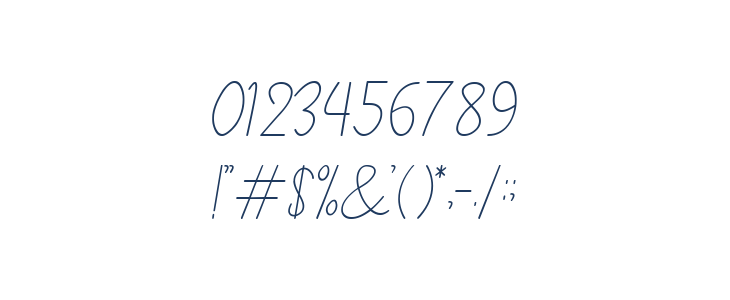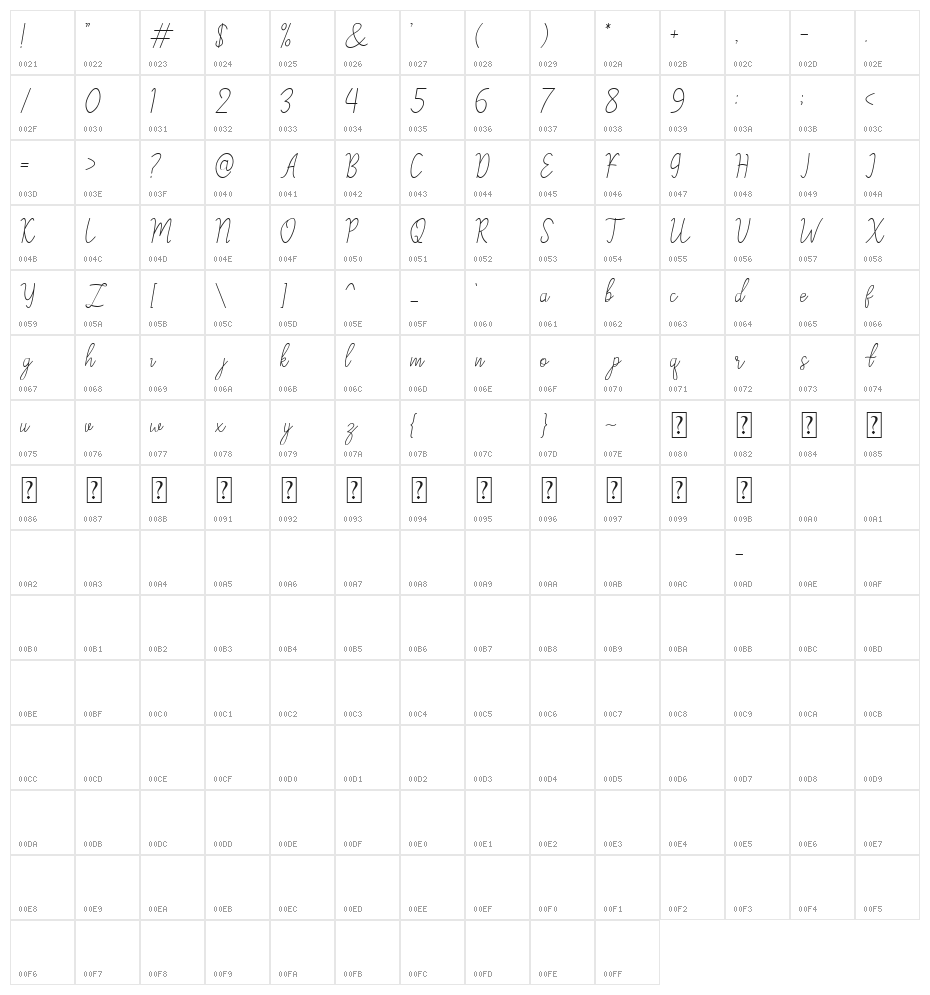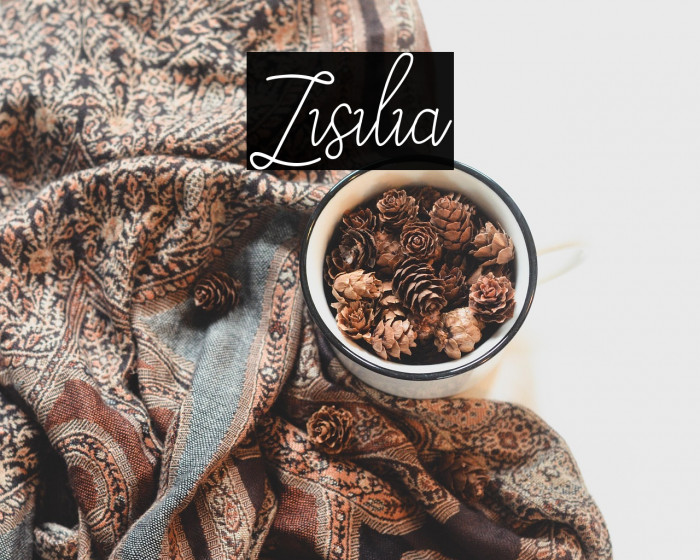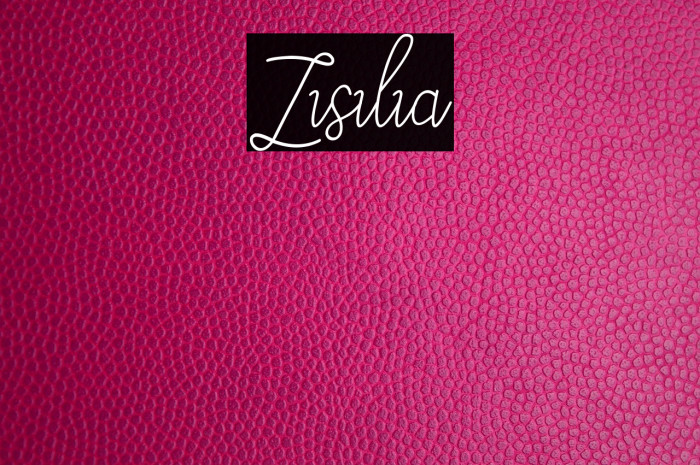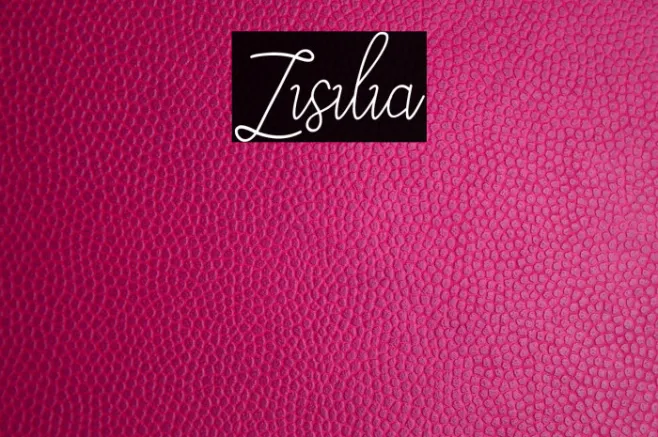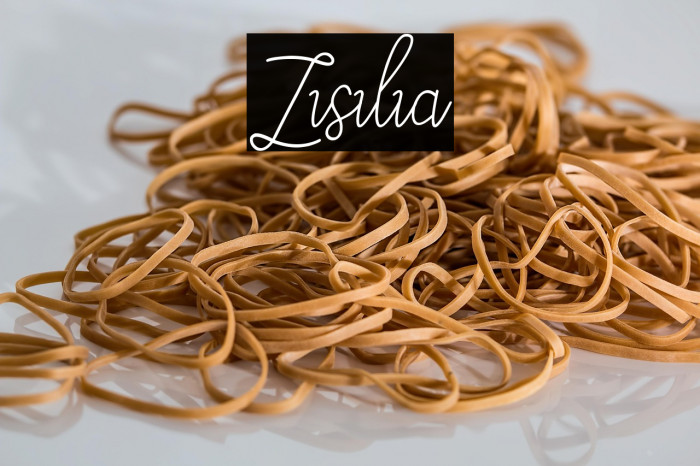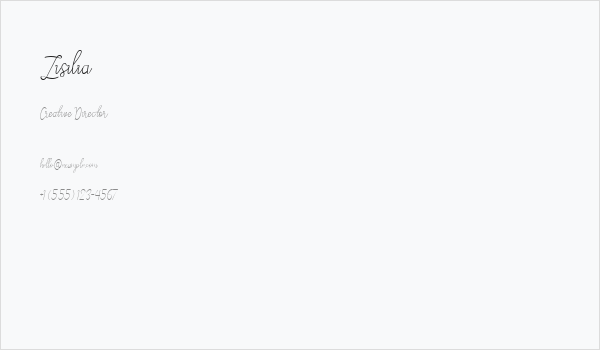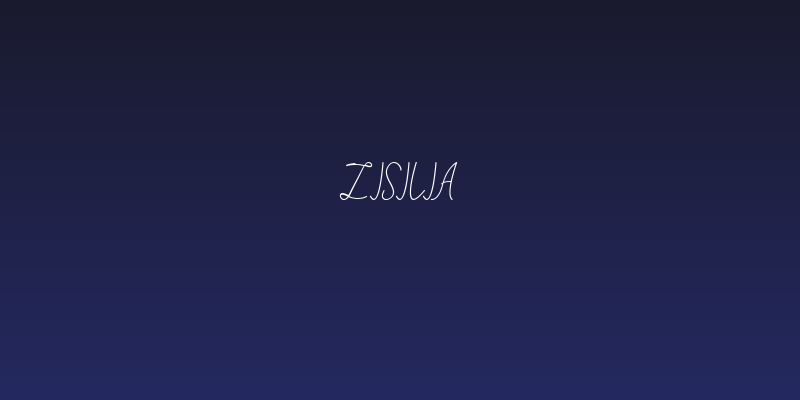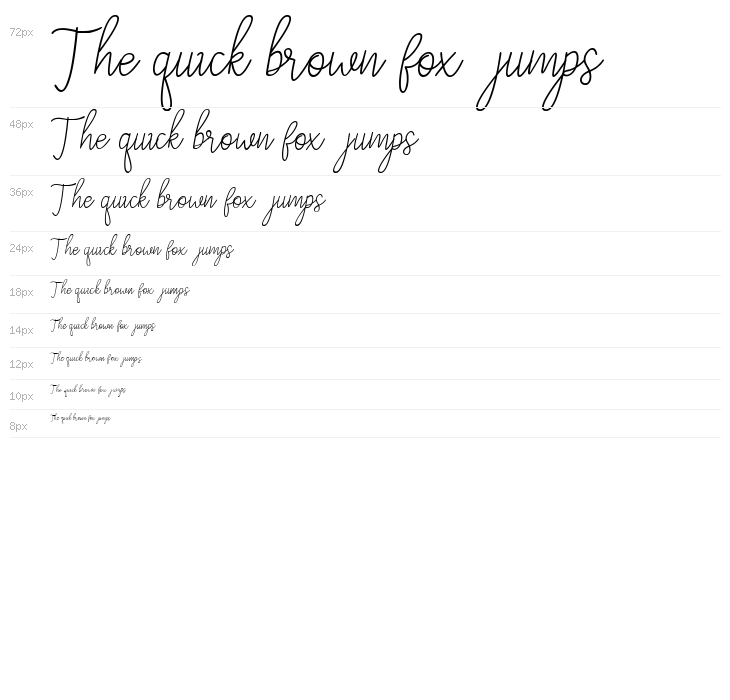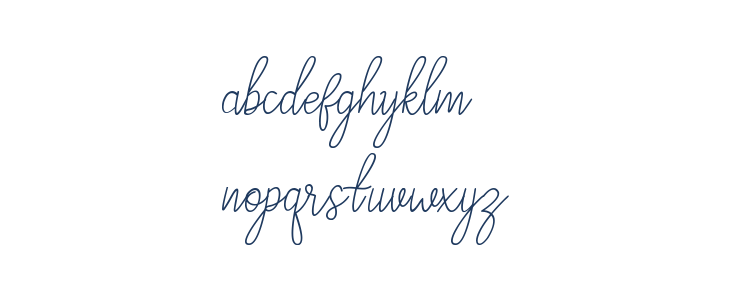
Zisilia Font
Zisilia Description
This elegant script font features a flowing, cursive style with smooth, continuous strokes that create a sense of fluidity and grace. The uppercase letters are tall and slender, with gentle curves and loops that add a touch of sophistication. The lowercase letters maintain a consistent flow, with rounded forms and delicate connections between characters. The numerals are styled to match the overall script aesthetic, providing a cohesive look across all characters. Special characters are thoughtfully designed to complement the font's elegant appearance, making it suitable for a variety of formal and decorative applications.